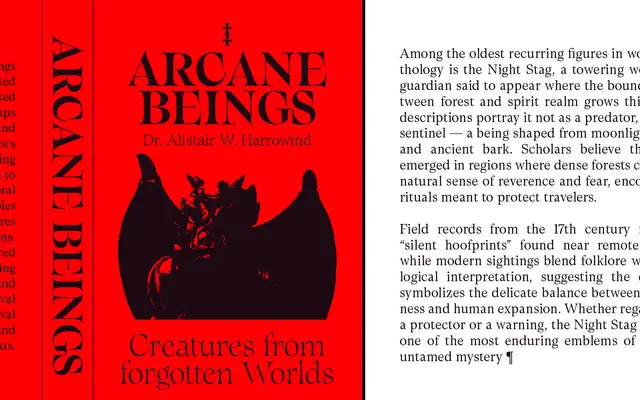
Aragorn
Zetafonts · Francesco Canovaro · 2025
A 24-style Old Style serif by Francesco Canovaro spanning a Display subfamily with high contrast and calligraphic tension and a Text subfamily tuned for extended reading.
Designed at Zetafonts with Filippo Sgarlata and Andrea Tartarelli, Aragorn pairs fluid, elongated letterforms and subtle asymmetries with precise detailing across two optical subfamilies. The Display cuts push contrast and stylistic quirks for headlines, titles and brand work, while the Text cuts lower contrast and open the counters for long-form print or screen use. Variable fonts covering both weight and optical size axes are included in the full family package, giving continuous control across all 24 static styles.
Aragorn roots itself in Old Style heritage with calligraphic rhythm and fluid, elongated forms. The Display subfamily amplifies high contrast and stylistic quirks, while the Text subfamily reduces contrast for extended reading, placing both firmly in the old style serif tradition.